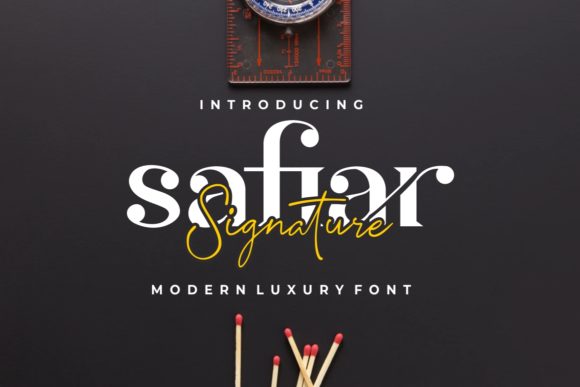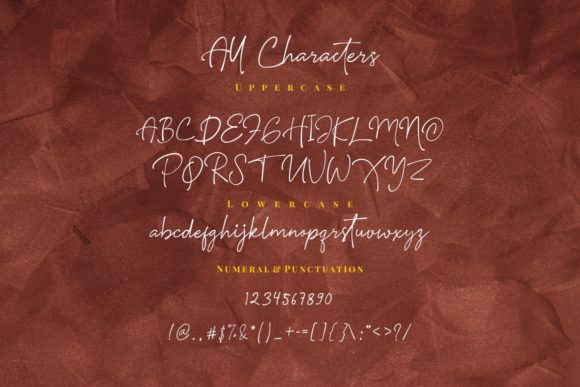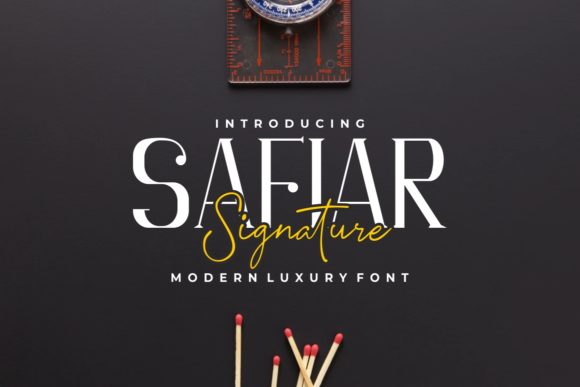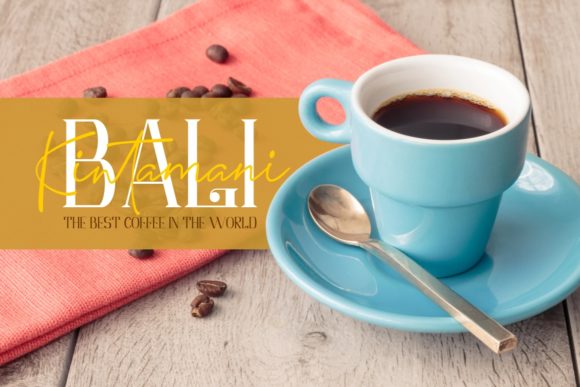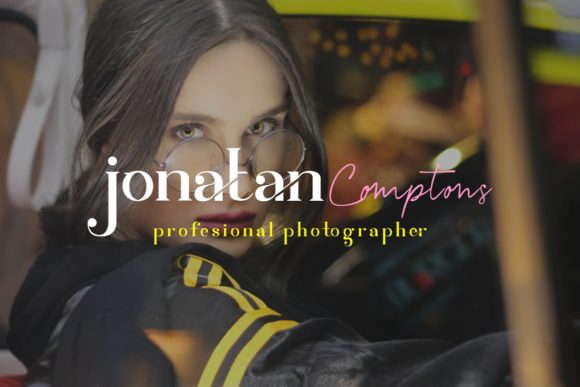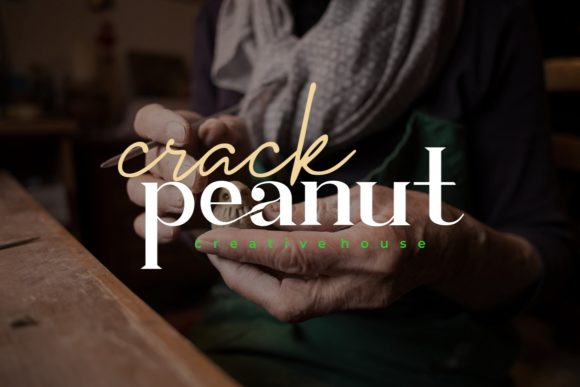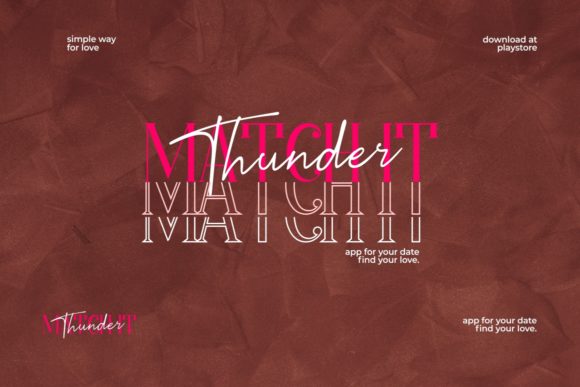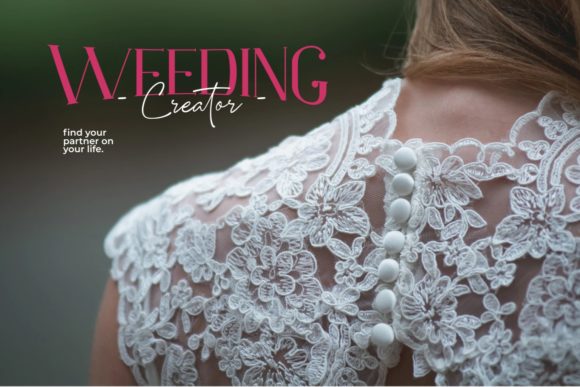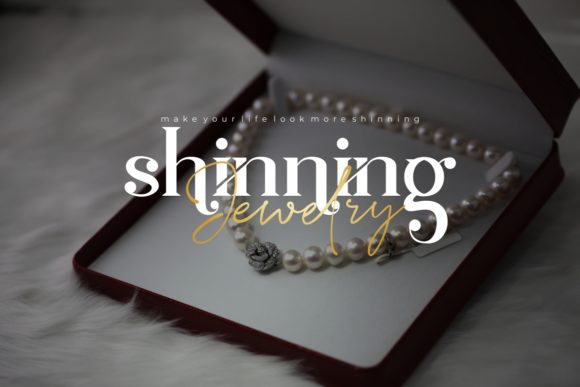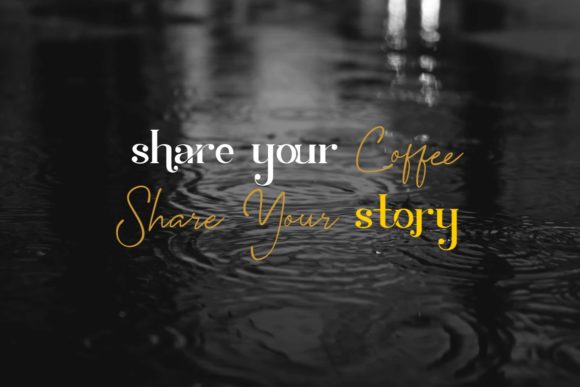
Safiar Font
About Safiar Font
Safiar is a fun and bold script font that will turn any design idea into a true standout. Get inspired by its unique charm!